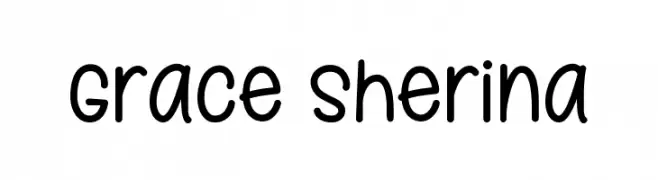
A playful, handwritten font with rounded, fluid strokes and consistent weight.
A playful, rounded handwritten font with smooth curves and a friendly appearance.